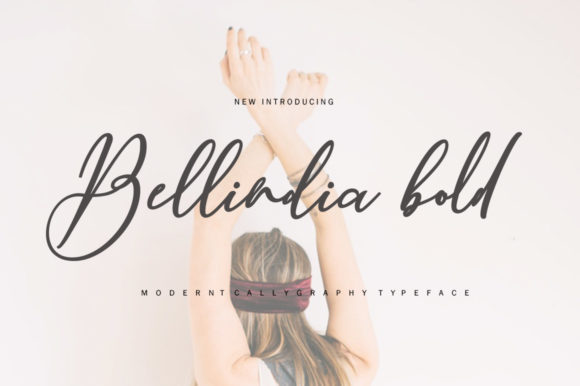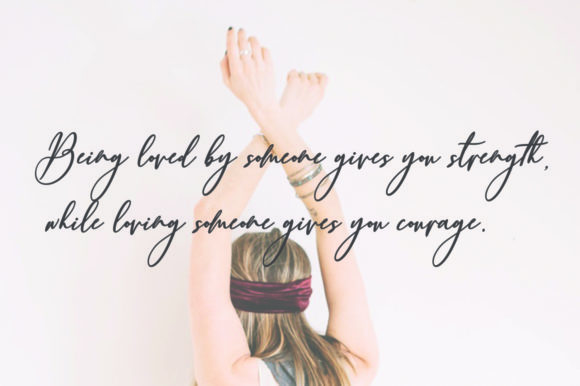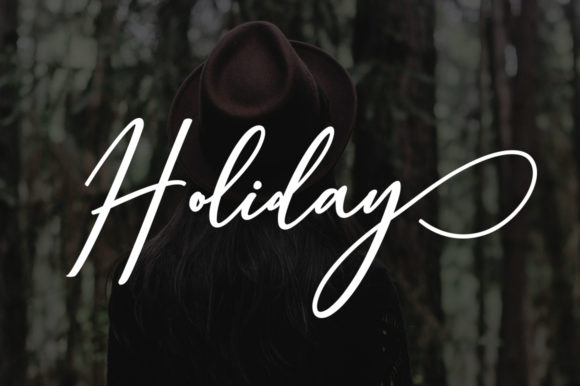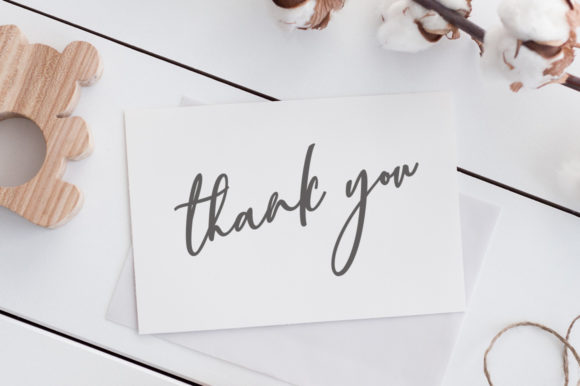
Bellindia Font
About Bellindia Font
The Bellindia is a modern calligraphy font with an amazing handwritten style. It’s perfect for branding, wedding invites, magazines, mugs, and every other design which needs an elegant touch.